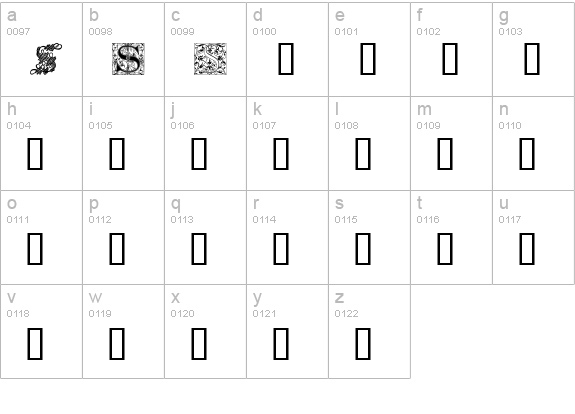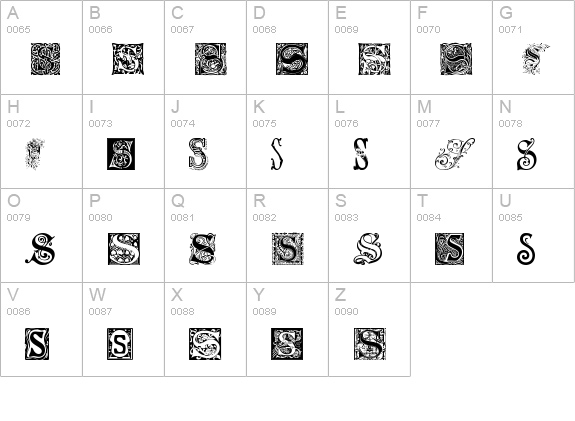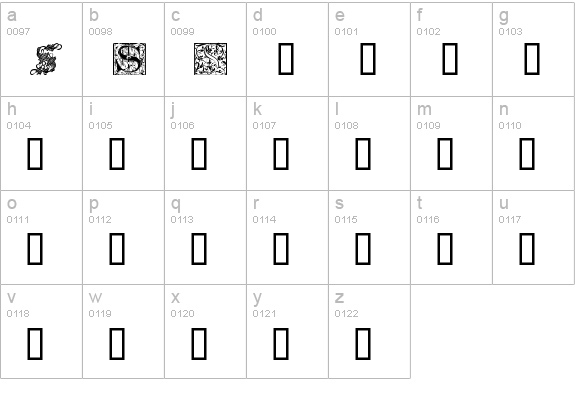
Ornamental Initials S Font Details
Ornamental Initials S font is a stunning and elegant typeface that exudes sophistication and charm. With its intricate details and ornate design, this font is perfect for adding a touch of luxury to your projects. The ornamental initials in this font are beautifully crafted, making them perfect for use in titles, headings, and other decorative elements. The Ornamental Initials S font is ideal for creating invitations, greeting cards, posters, and more. Its classic and timeless style will add a touch of class to any project. Whether you're designing wedding stationery or crafting a vintage-inspired logo, this font is sure to make a statement. The best part is that Ornamental Initials S font is available for free download at FontsMarket.com. So you can easily add this beautiful typeface to your collection without any cost. Don't miss out on the opportunity to enhance your designs with this exquisite font. Download Ornamental Initials S today and take your projects to the next level!